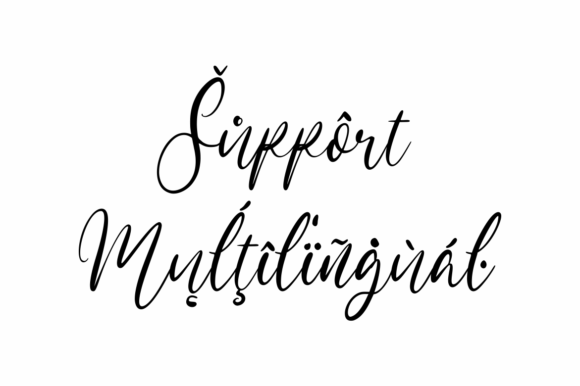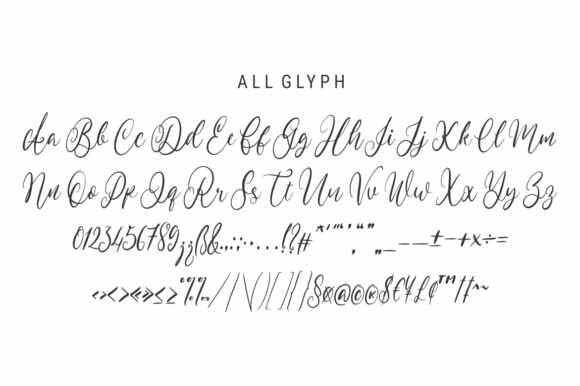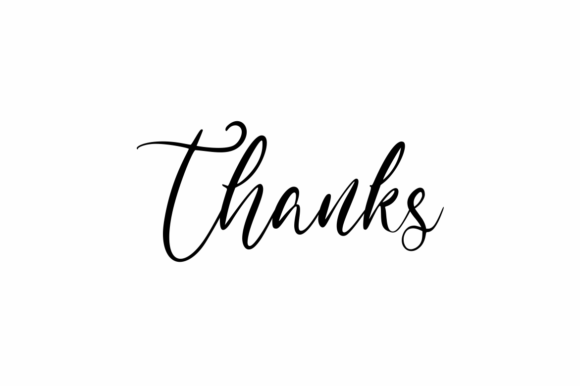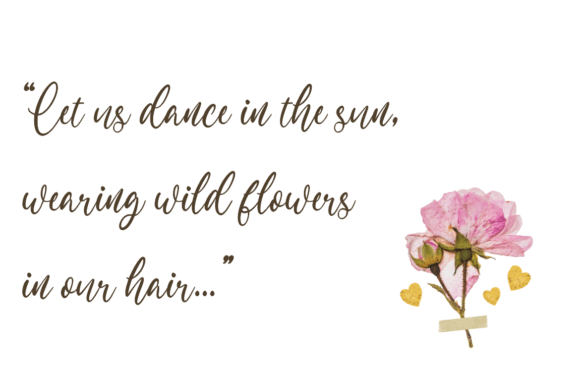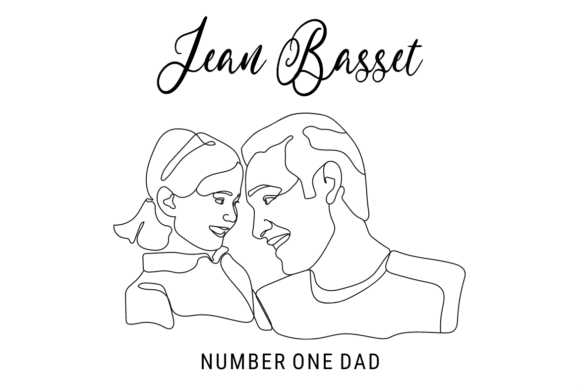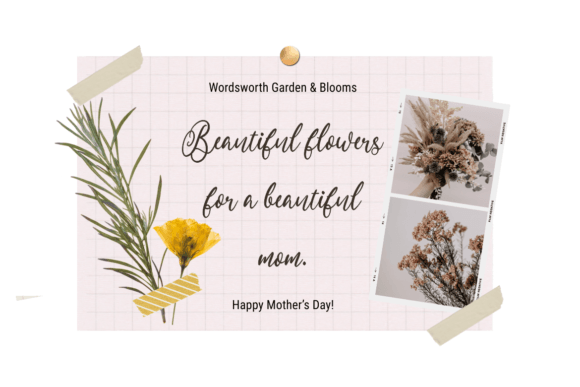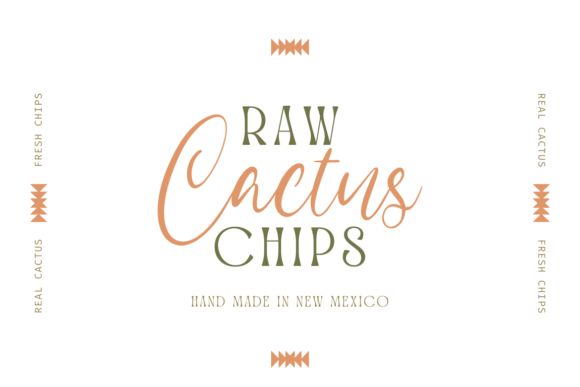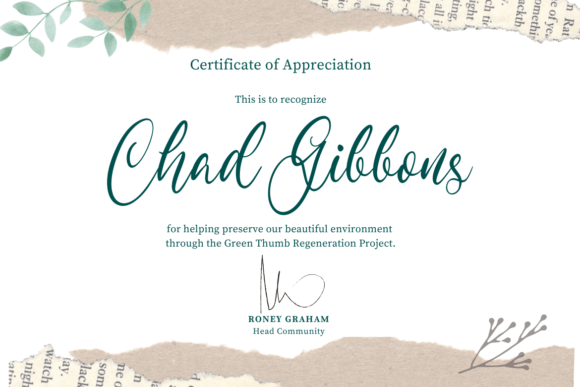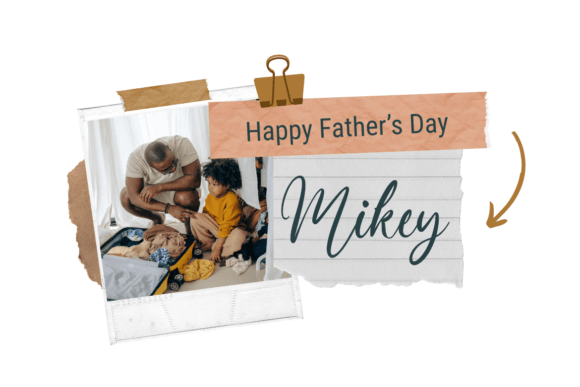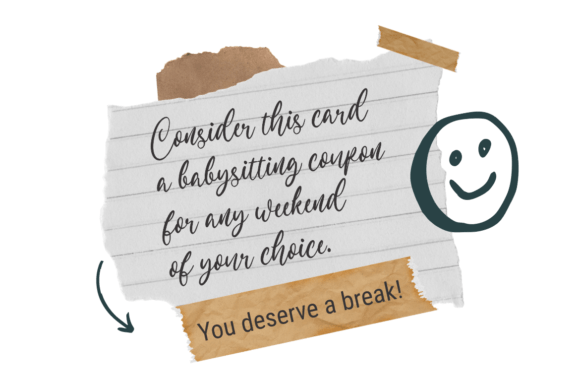
Simple Handmade Font
Simple Handmade Handwritten Font – Elegant Script Typeface
The Simple Handmade Handwritten Font is a delicate and elegant script typeface designed to bring charm and personality into your creative projects. With its smooth strokes and natural handwritten look, it adds a romantic touch that works across many types of designs. Whether used for greeting cards, invitations, or modern branding, this font enhances your work with authenticity and style.
A Romantic Script with Timeless Beauty
The Simple Handmade Handwritten Font combines elegance with readability. Its flowing letters and soft curves make it versatile for both casual and professional design. From wedding stationery to social media graphics, it ensures your text looks polished and personal at the same time. Designers love its ability to balance delicacy with clarity.
Perfect for Invitations and Cards
This handwritten script font is especially well-suited for invitations and greeting cards. The Simple Handmade Handwritten Font gives wedding stationery, thank-you notes, and romantic cards a heartfelt and personal feel. Its stylish flow also makes it suitable for decorative headlines and posters.
Handwritten Charm for Creative Projects
While elegant, the Simple Handmade Handwritten Font is also versatile. Its natural handwritten feel makes it suitable for product packaging, branding, DIY crafts, and blog headers. The romantic strokes elevate simple layouts, while the clear letterforms ensure readability across different sizes and mediums.
Why Designers Choose This Typeface
Designers appreciate fonts that combine beauty with usability. The Simple Handmade HandwrittenFont achieves this balance by being stylish enough for formal projects and friendly enough for casual designs. Its adaptability makes it a must-have in any font collection.